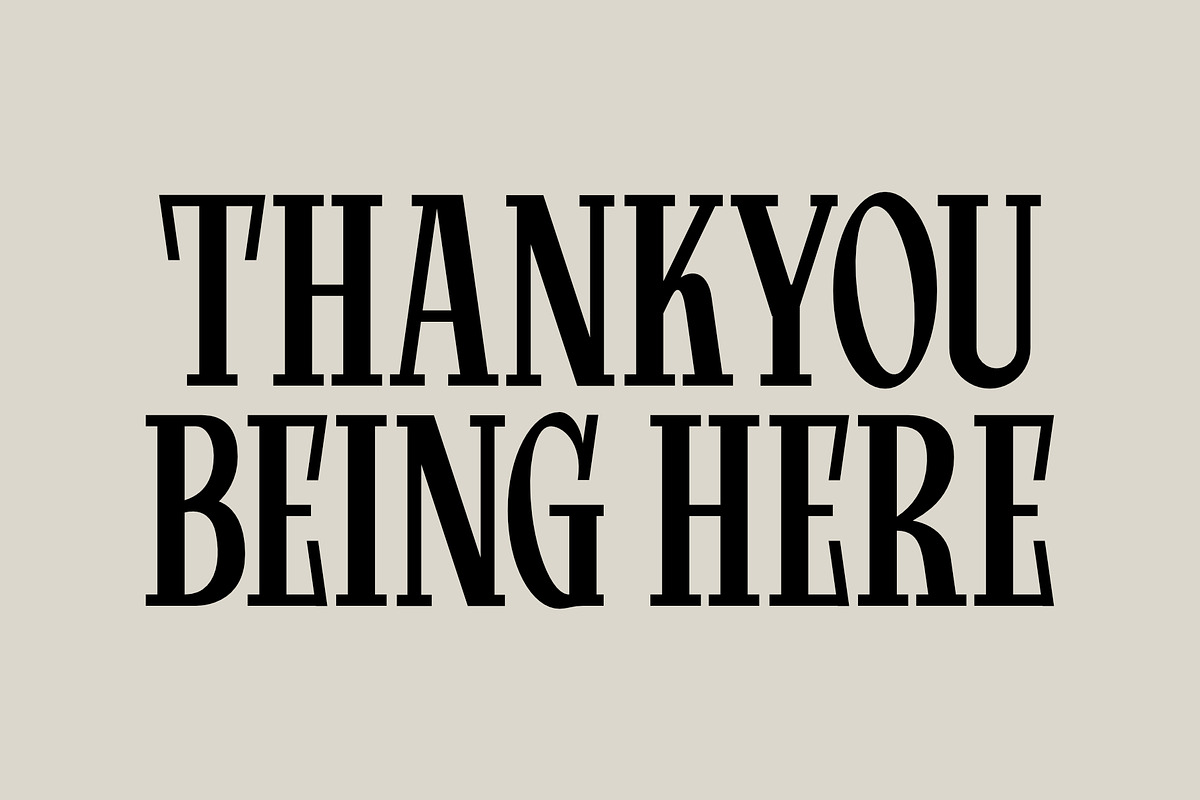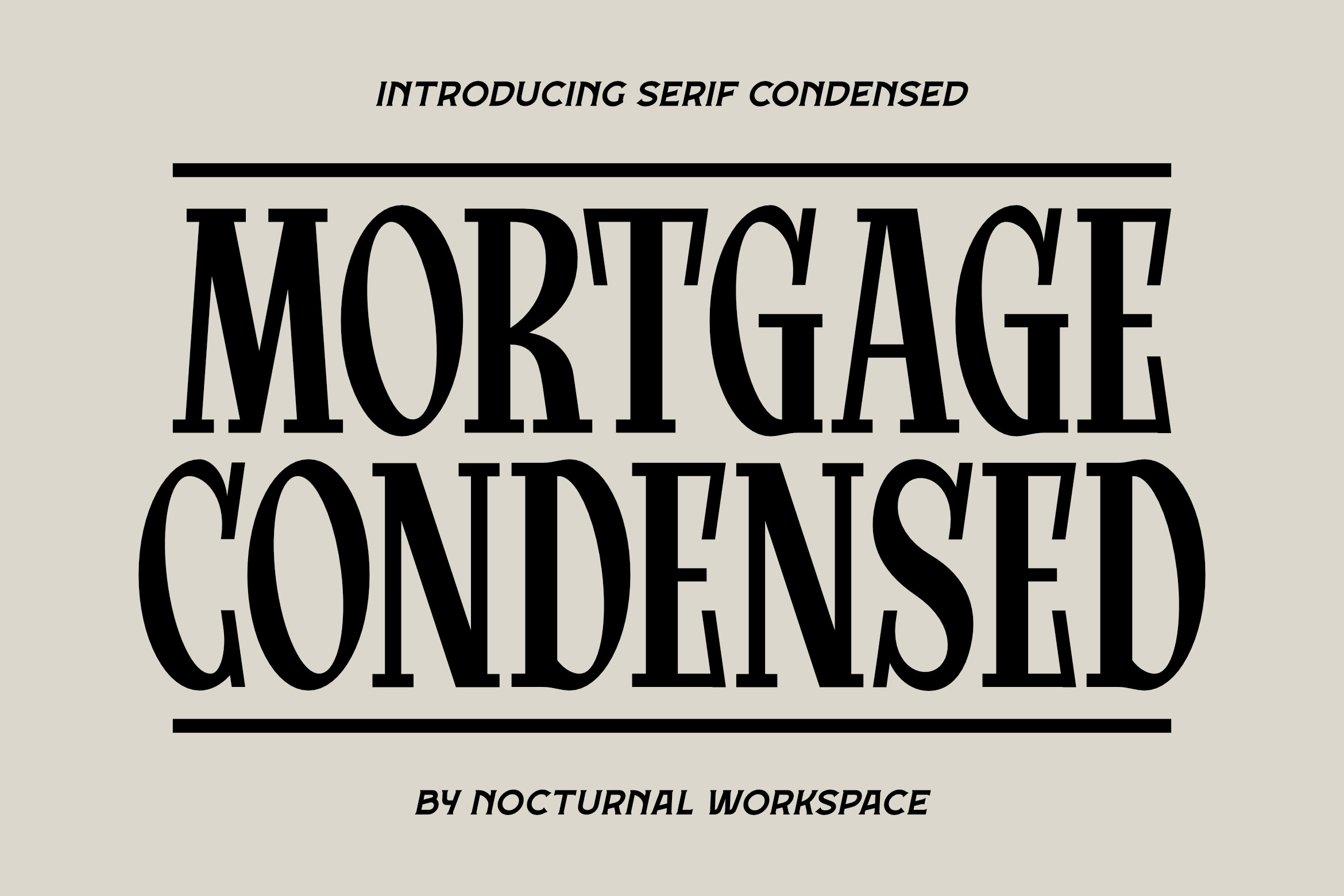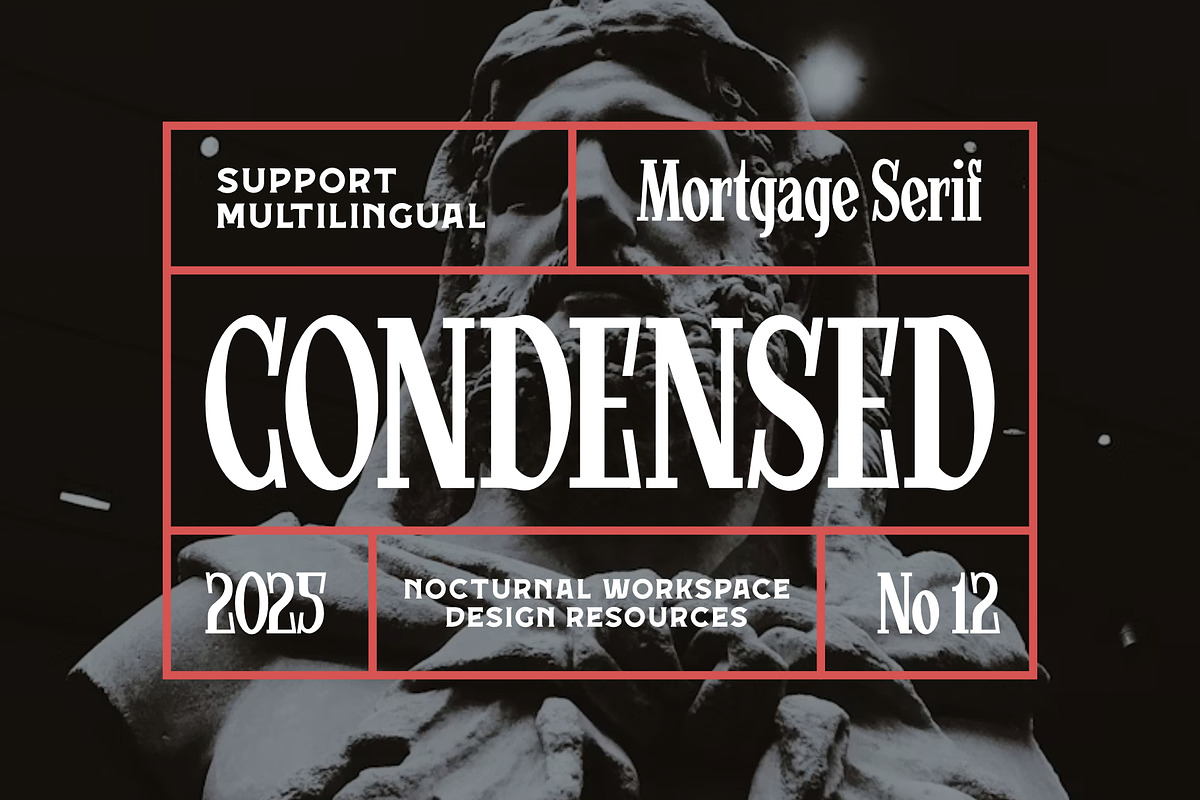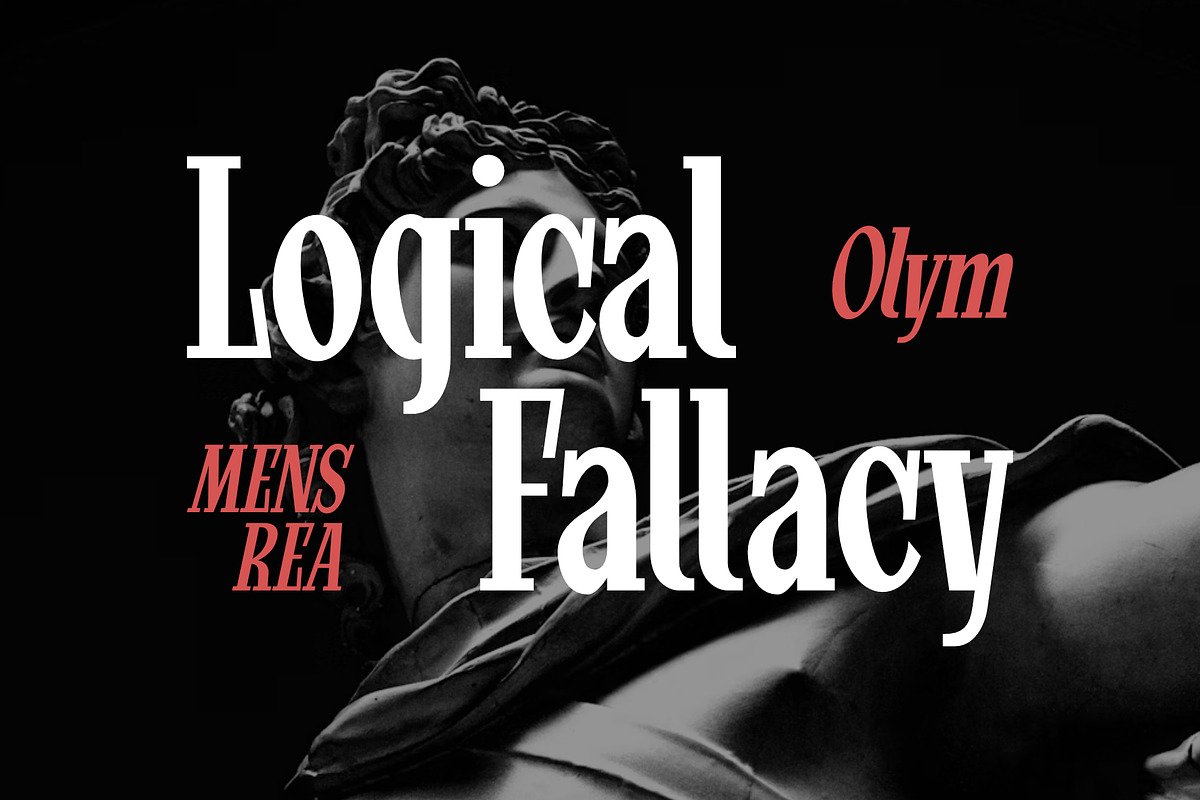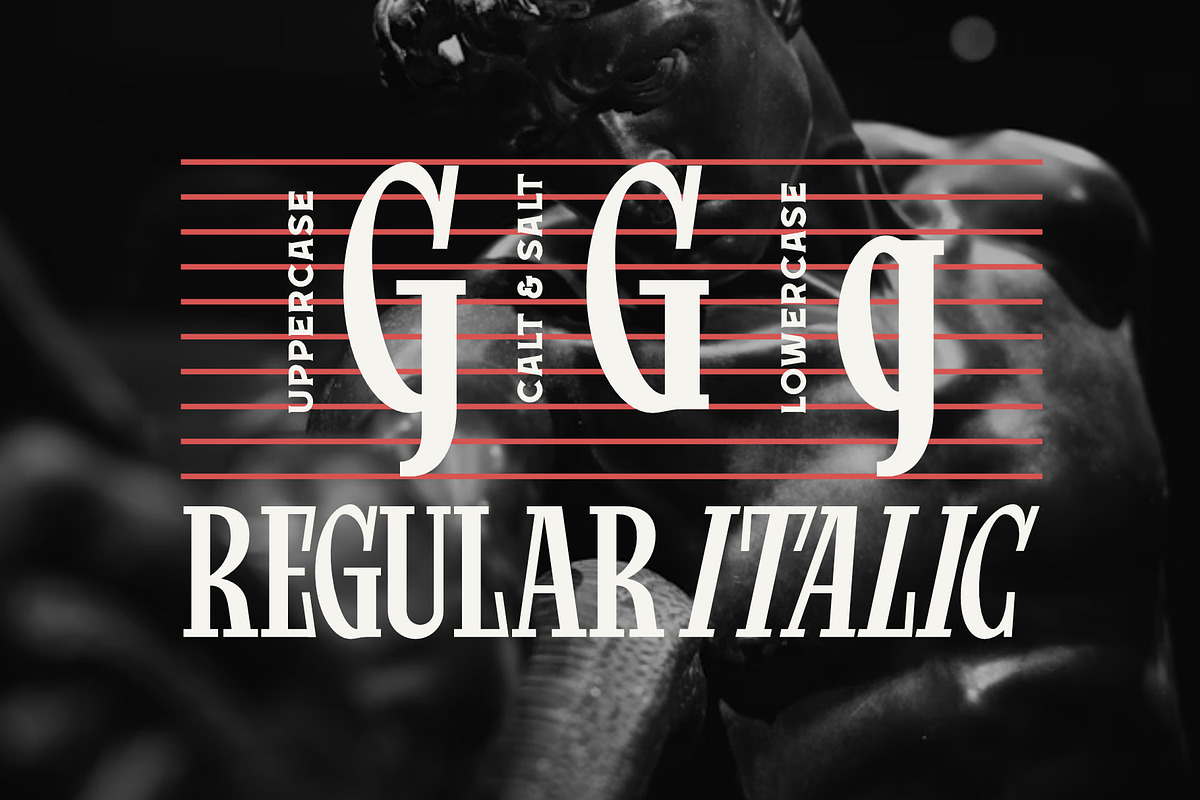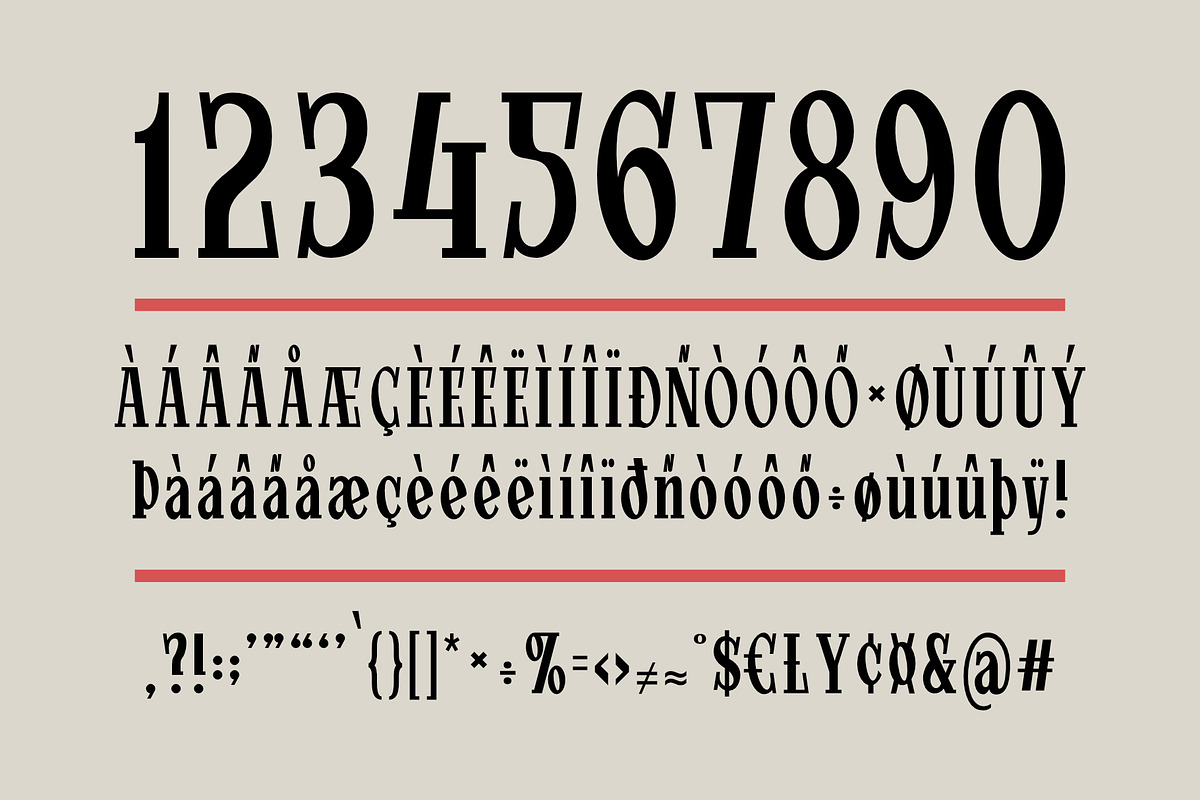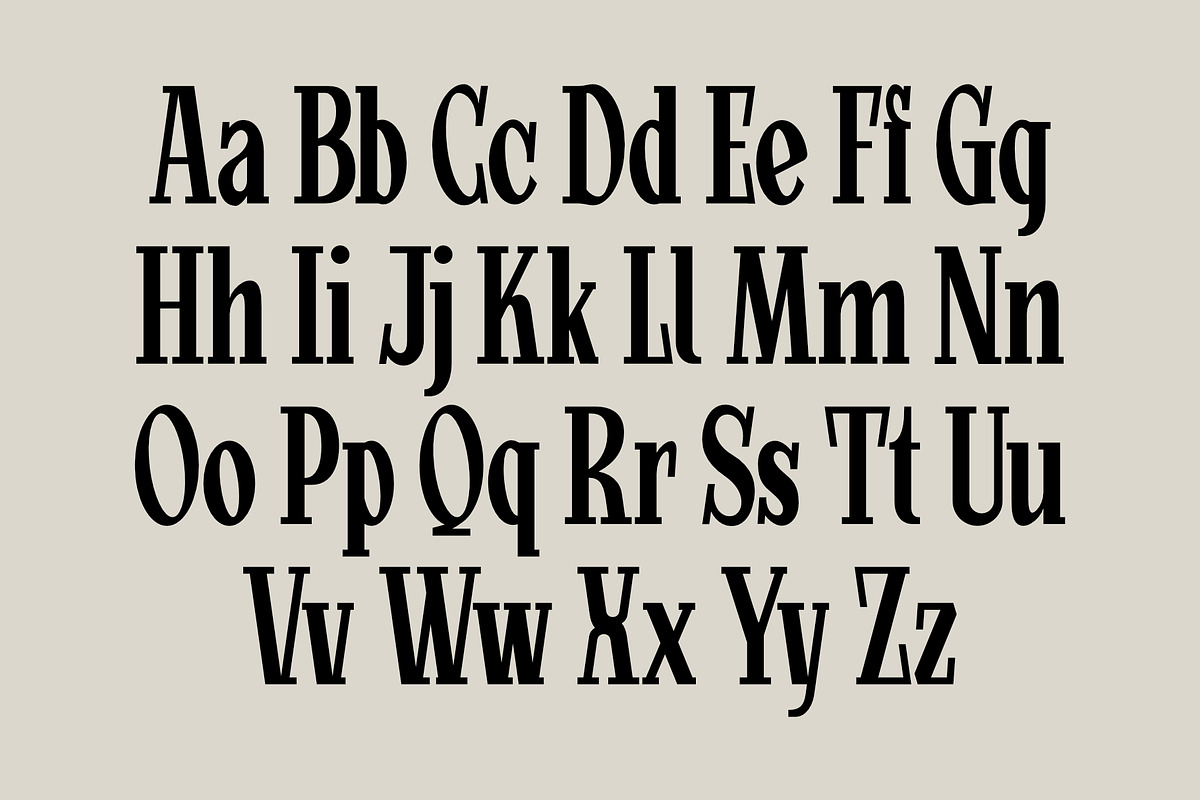
Mortgage Condensed – Classic Font
Mortgage Condensed is a condensed serif display font with a strong, tall, and elegant character. Designed for design needs requiring bold, space-saving, and classy headlines, this font is perfect for posters, editorials, branding, logos, packaging, and both modern and vintage typography.
Features : Stylistic Alternates, Contextual Alternates.
Includes a range of multilingual characters.
Mortgage Font is suitable typeface for various purposes like logotype, signage, label, poster, dropcap, titles, letterhead, book cover and etc.